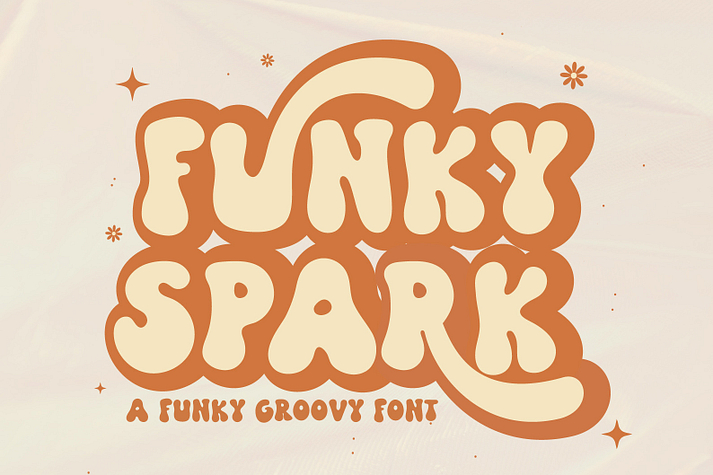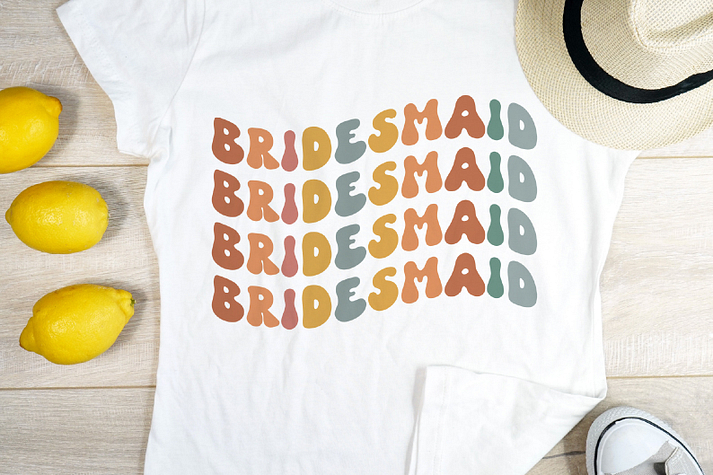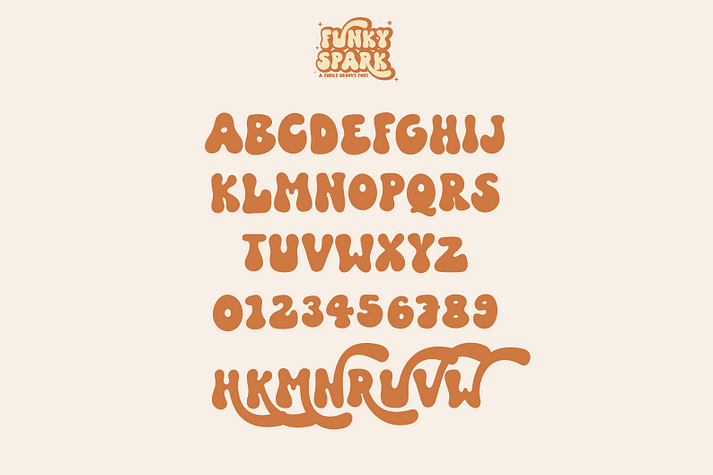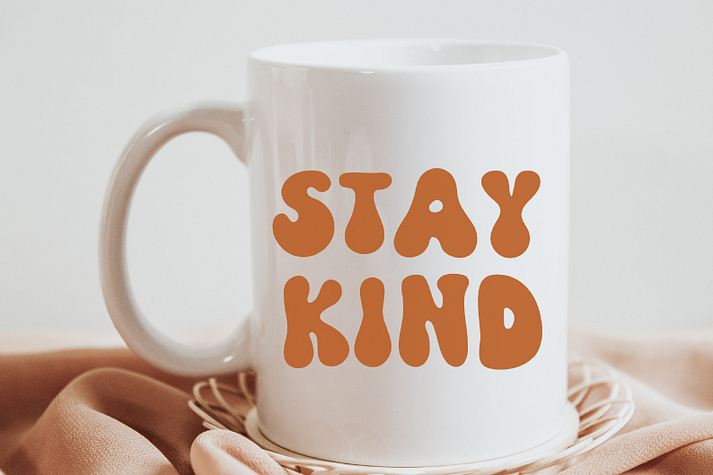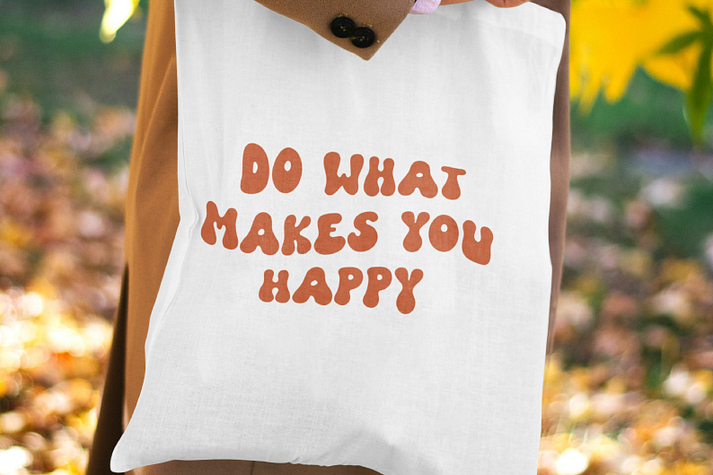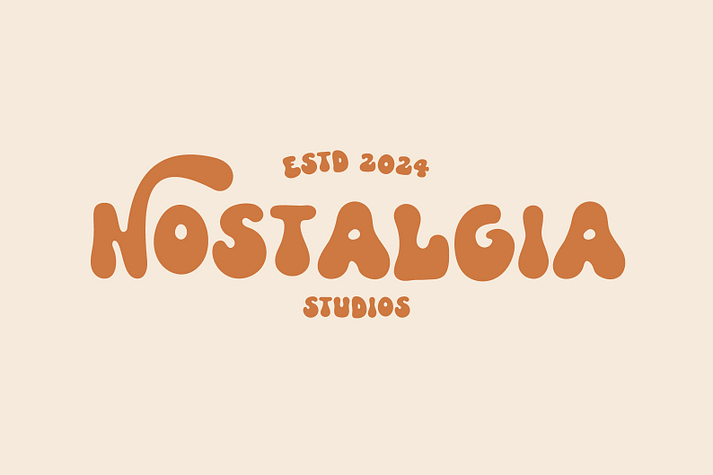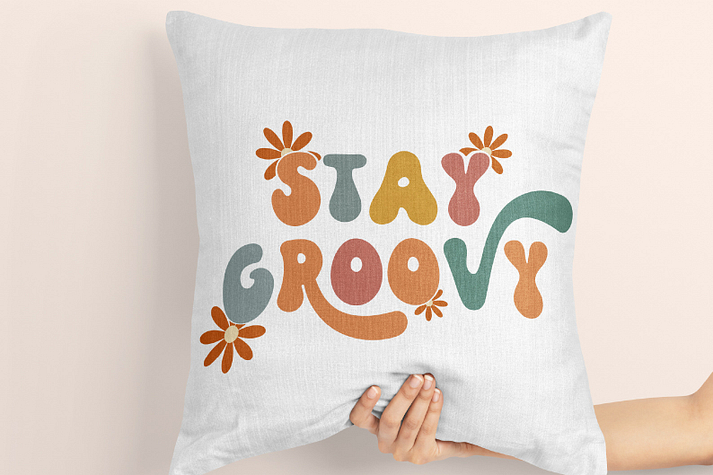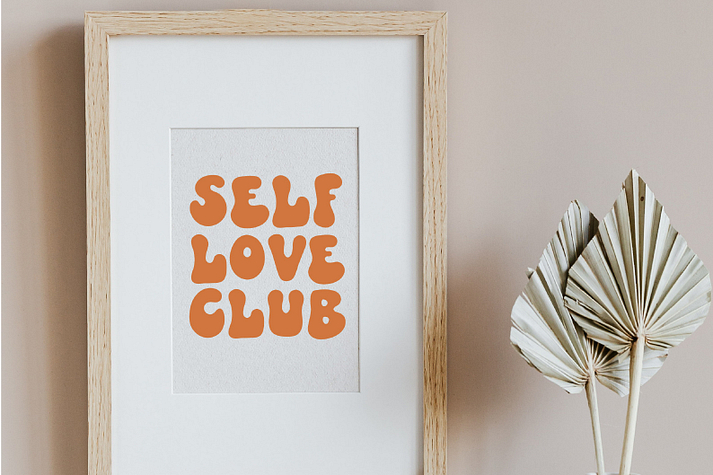
Funky Spark
Funky Spark is a novelty and retro font family published by Prestige Artsy Studio.
Introducing Funky Spark a cute quirky font that channels the spirit of the 79s with its groovy curves and vibrant energy with a touch of nostalgia to any project.